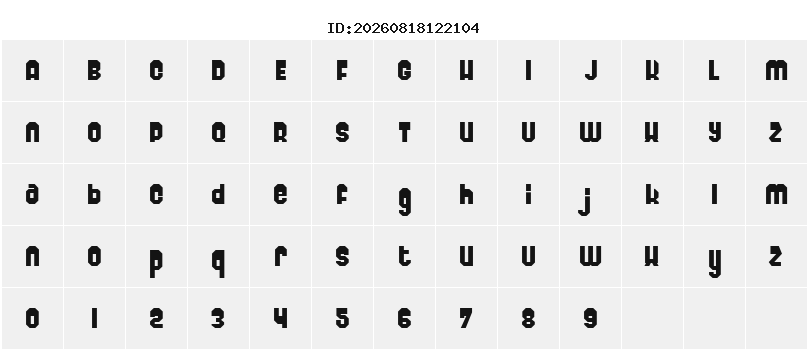
• Font Name: Snappy
• Full Font Name: Snappy
About Snappy.ttf
Snappy.ttf is a modern, elegant sans-serif font designed for ultimate readability and visual harmony. Perfect for branding, headlines, web design, and print materials.